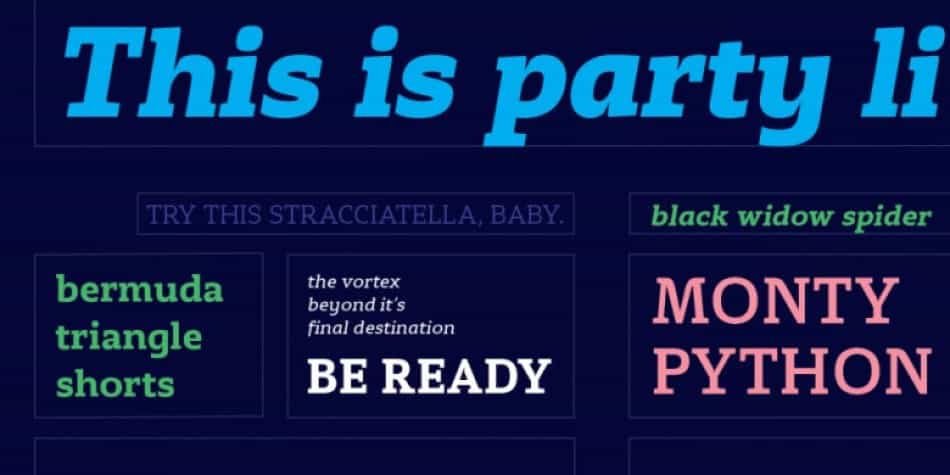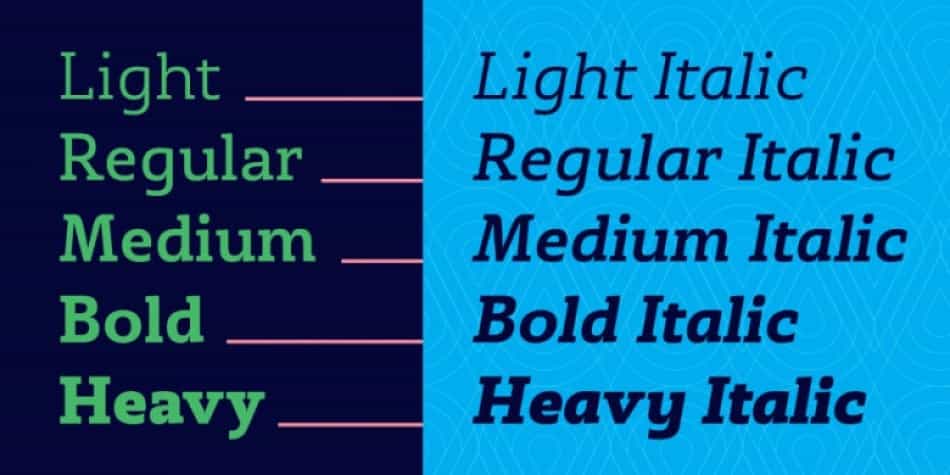
Stropha Font is a small slab serif font family with its own italic version, consisting of five weights in total and featuring distinct stem distinctions between letters in both weights. Stropha can be thought of as “all you really require”, offering deep ink traps, curvy top diagonal ends, and soft curvy accents in its designs for subtle details.